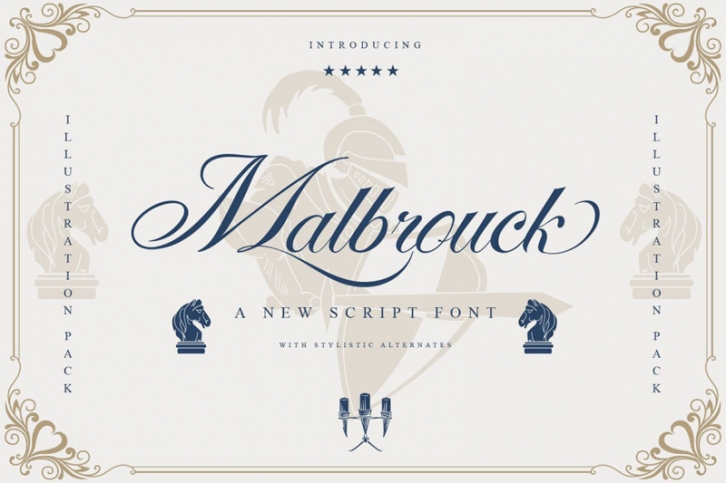
Malbrouck Classic Script Font Download
A font that is inspired by vintage decorative letters or cards. With ornamental vintage style and lot of stylistic alternates you can create realistic headers. There is also image font with various vintage shapes & illustrations (also included as a vector graphics). It works beautifully for personal branding and advertising. This font features uppercase, lowercase, ligatures, stylistic alternates, punctuation & numerals. Try it yourself below!